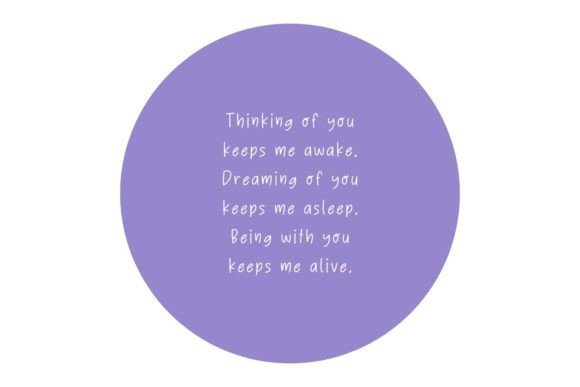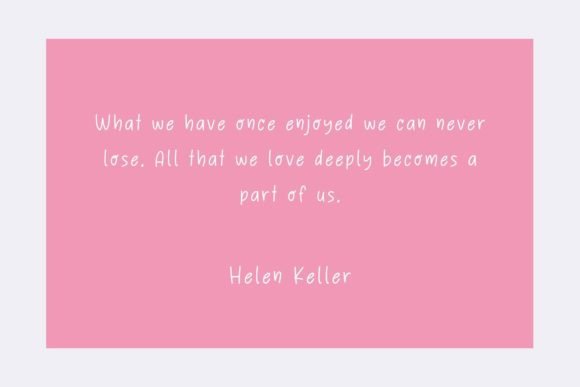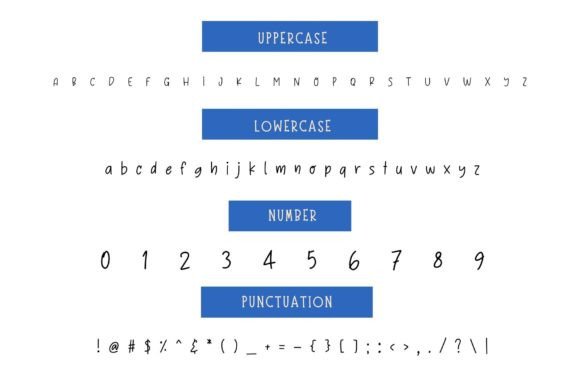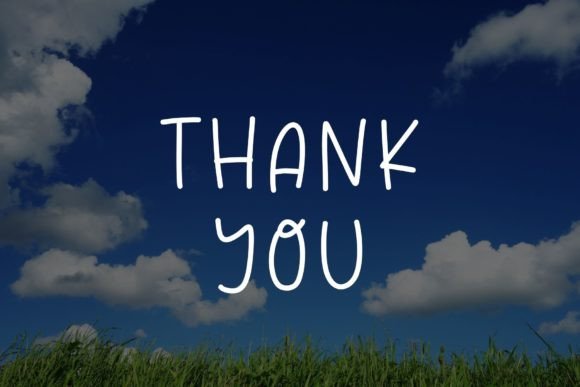
The Ultimate Guide to Hey Friday Font: Adding Playfulness to Your Designs
I’ll never forget the time I was working on a project for a client’s birthday party invitation. I had the design almost finalized, but something was missing – the perfect font. I scrolled through my font library, but nothing seemed quite right. That’s when I stumbled upon Hey Friday Font, and it was love at first sight! 💕 In this article, I’ll share my experience with this adorable handwritten font, its features, and how to make the most of it in your designs.
An Honest Review of Hey Friday Font
So, what makes Hey Friday Font so special? Let’s dive into the good stuff and a few quirks I’ve discovered.
- ✨ Playful and Authentic: Hey Friday Font embodies the perfect blend of playfulness and authenticity, making it ideal for a wide range of projects.
- ✅ Ease of Use: This font is incredibly easy to read and works well in various design contexts, from blog posts to logos and branding.
- 💕 Emotional Connection: The handwritten nature of Hey Friday Font creates an instant emotional connection with your audience, making your designs feel more personal.
While Hey Friday Font is amazing, there are a few things to keep in mind:
- 🤔 Limited Formality: Given its playful nature, Hey Friday Font might not be the best choice for very formal projects or designs requiring a high level of professionalism.
- ⚠️ Legibility at Small Sizes: Like many handwritten fonts, Hey Friday can get a bit tricky to read at very small sizes. It’s best used at larger sizes where its charm can shine.
The Backstory of Hey Friday Font
While the origins of Hey Friday Font might be shrouded in mystery, it’s easy to imagine that it was created with the intention of bringing joy and playfulness to designs. Perhaps a designer, tired of the same old fonts, decided to craft something that embodies the carefree spirit of Fridays – a day we all look forward to. The result is a font that’s both fun and functional.
| Font Name | Hey Friday Font |
| Author | Brown Cupple Fonts |
Q: Is Hey Friday Font suitable for professional branding?
A: Absolutely! While it’s playful, Hey Friday Font can add a unique touch to professional branding, especially for businesses aiming for a friendly and approachable image.
Q: Does Hey Friday Font support OpenType features?
A: Yes, Hey Friday Font supports OpenType features, allowing you to access a range of glyphs and stylistic alternates to enhance your designs.
In conclusion, Hey Friday Font is a delightful addition to any designer’s toolkit. Its playful and authentic feel can elevate a wide range of projects, from casual blog posts to professional branding. With its ease of use and charming aesthetic, it’s sure to become a favorite. So go ahead, give Hey Friday Font a try, and watch your designs transform with a touch of playfulness and authenticity!